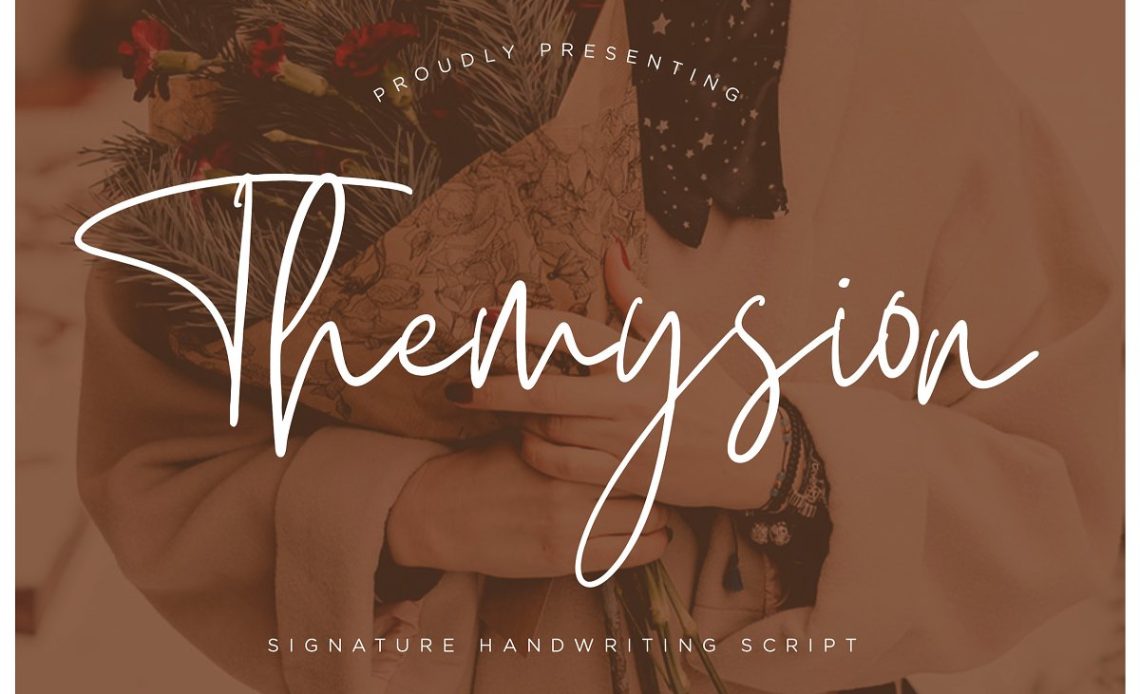
Introducing Themysion Signature Wedding Font - the ultimate font for all your creative projects! Created by the talented Mohamad Rian Rahardi, this modern script font boasts elegant and classy looks that are sure to make your projects stand out. Whether you're working on a branding project, logo design, wedding invitation, social media post, advertisement, or product packaging, Themysion has got you covered.
But what sets Themysion apart from other signature fonts on the market is its versatility. Not only is it a great choice for wedding designs and stationery, but it can also be used for product designs, labels, photography watermarks, and more. Its PUA encoded characters make it fully accessible without additional design software, making it a great choice for both beginners and professionals.
So why choose Themysion Signature Wedding Font? Because it's the best font for signature projects, and it's perfect for anyone looking to add a touch of elegance and personality to their designs. Don't settle for generic fonts - upgrade your projects with Themysion today and see the difference for yourself!